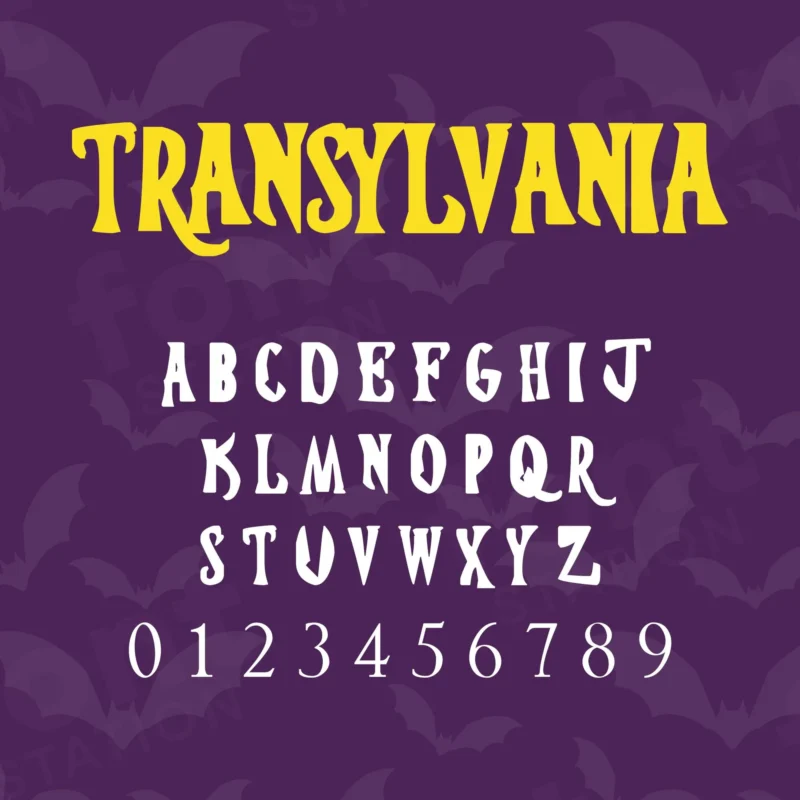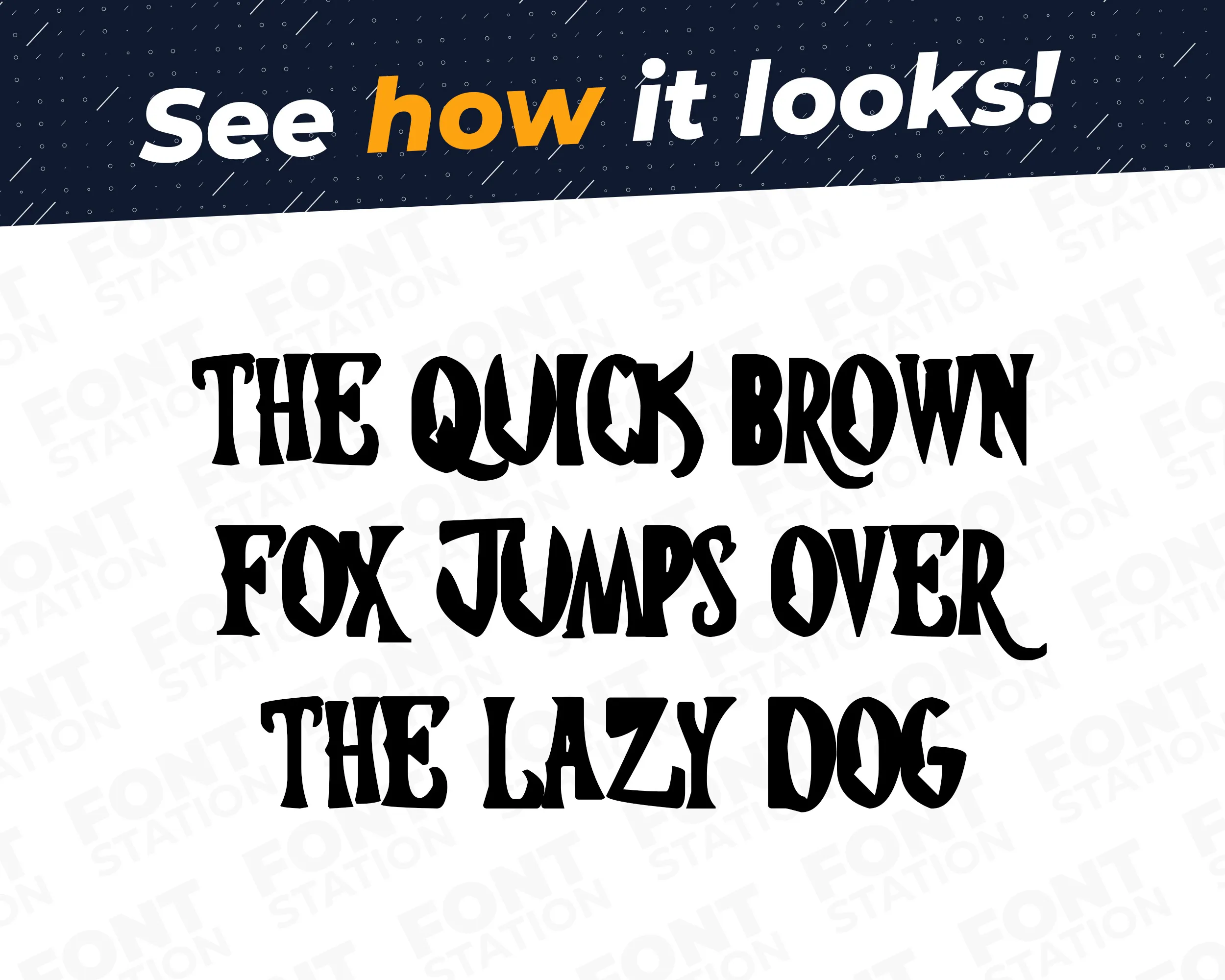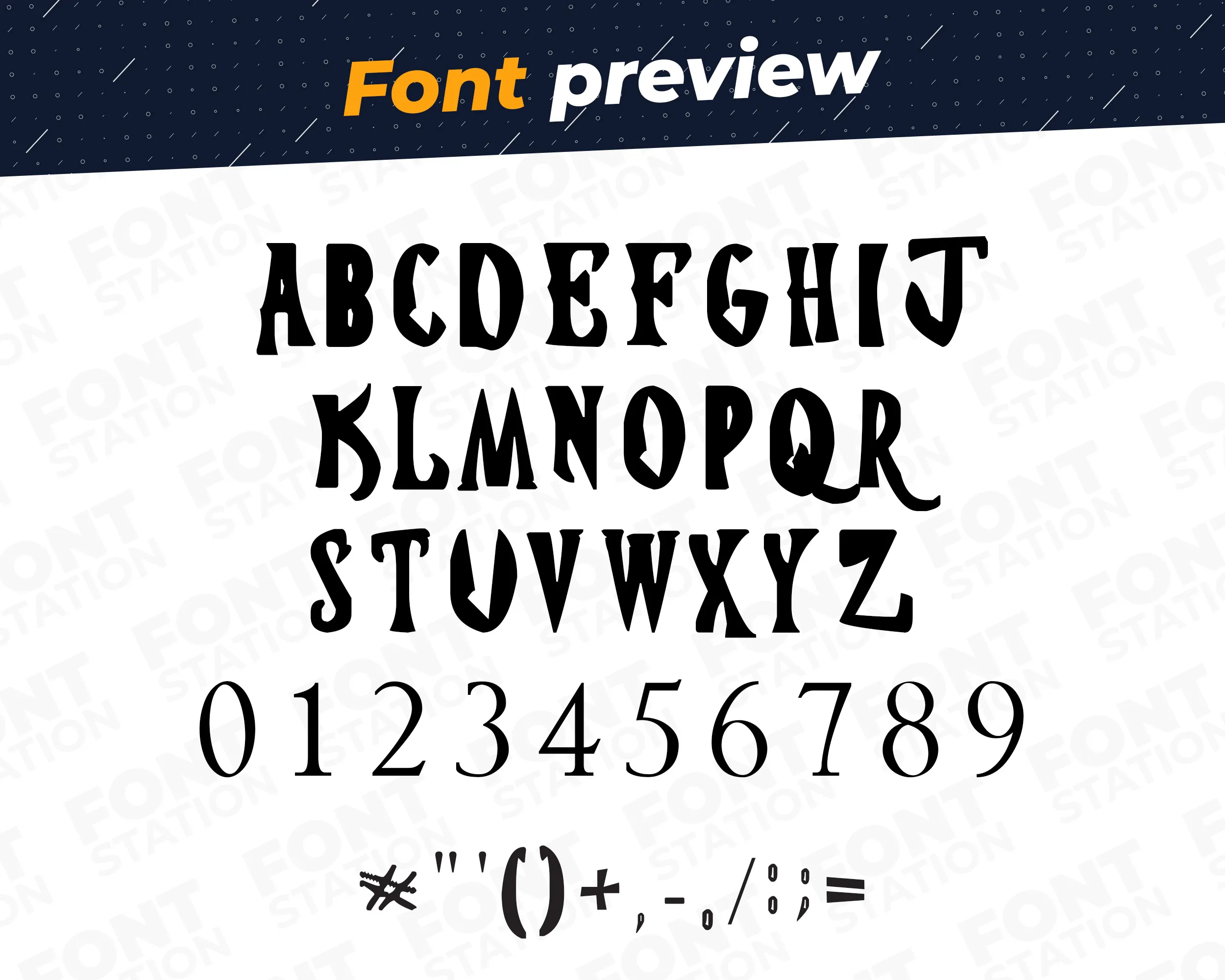
Our Dracula Vampire typeface, inspired from Hotel Transylvania font
Grab your computer, tablet or other device and start creating right now with our Hotel Transylvania font letters! Our Vampire typography is inspired from Hotel Transylvania movie font, making it ideal for various digital creations (logo, word…), sublimation, cake toppers, stickers, event decorations, and more.
Image showing all characters available in the Transylvania font created by FontMaze.
Hotel Transylvania Font